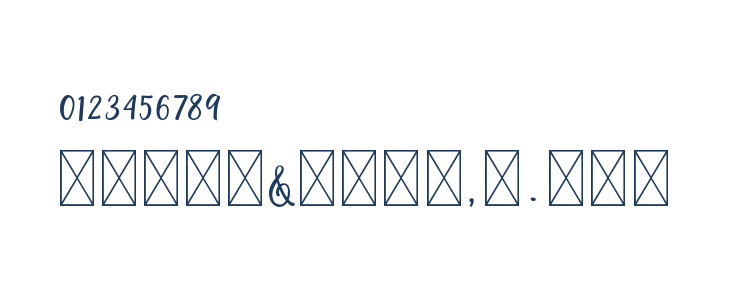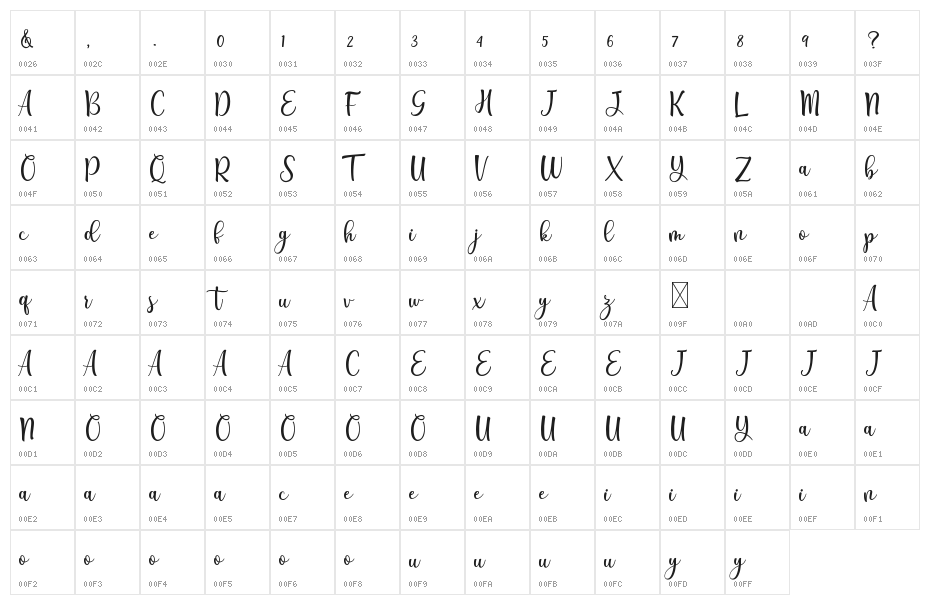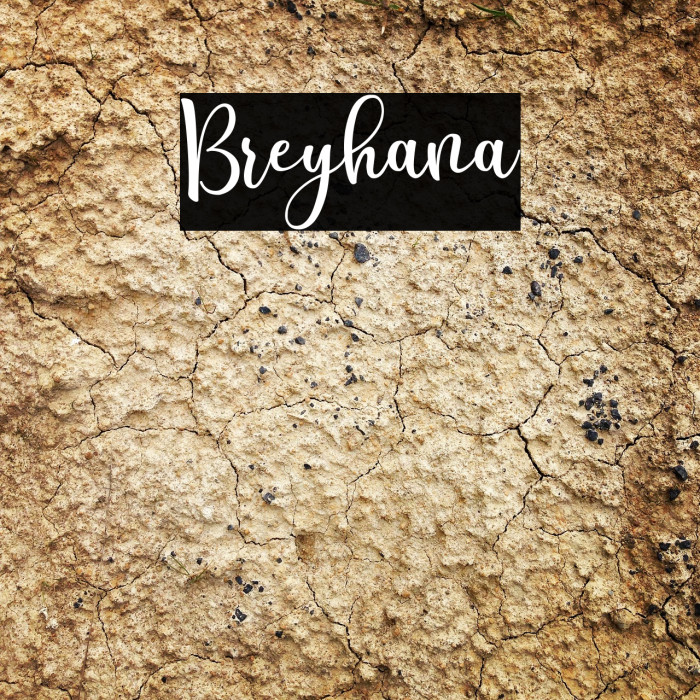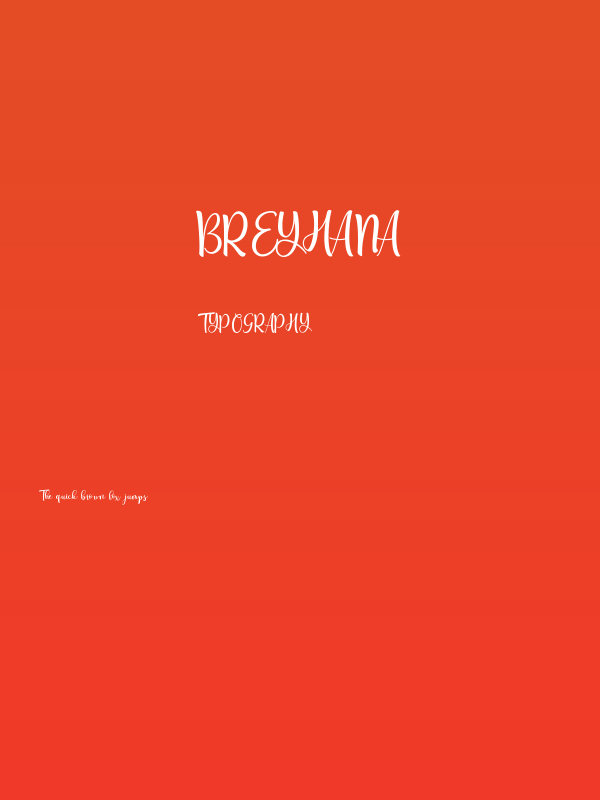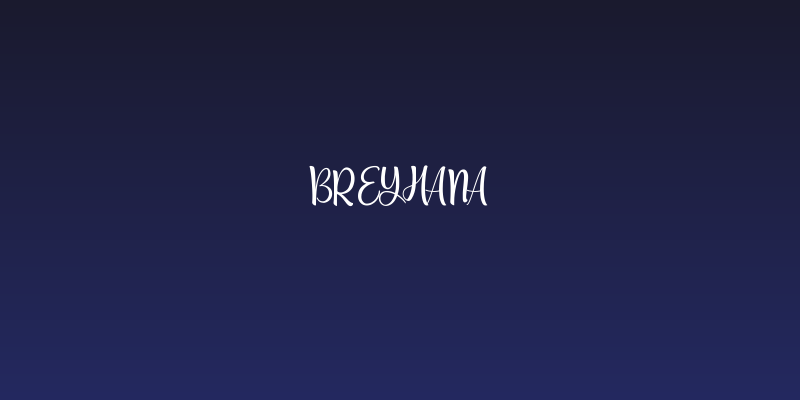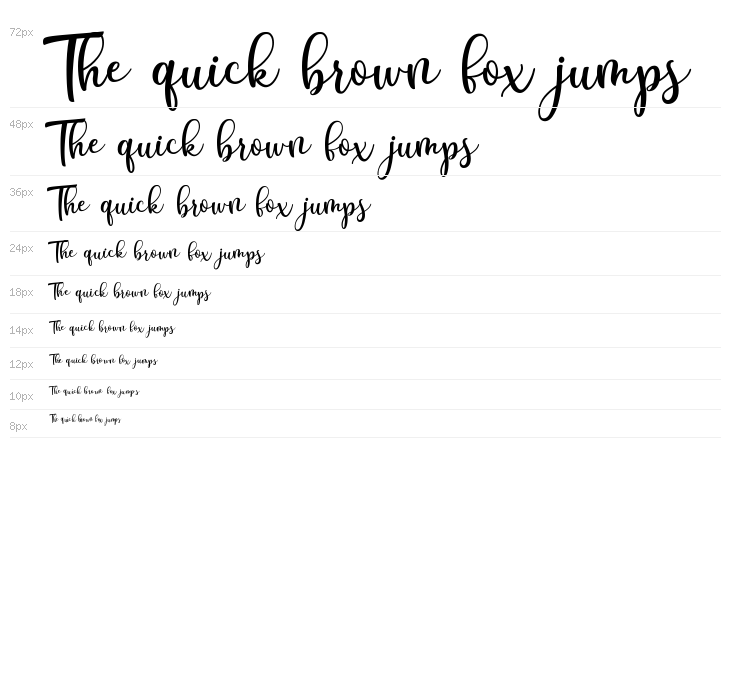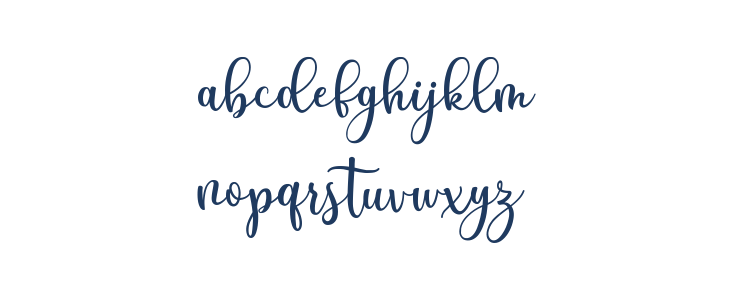
Breyhana Font
Breyhana Description
This font features a playful and elegant script style with a handwritten appearance. The uppercase letters are bold and slightly slanted, giving a sense of movement and fluidity. The lowercase letters maintain a consistent flow with smooth curves and loops, enhancing the handwritten feel. The numerals are clear and legible, matching the overall style of the alphabet. Special characters like the ampersand and punctuation marks are designed with the same attention to detail, ensuring they blend seamlessly with the rest of the font. This font's unique character makes it suitable for creative and expressive design projects.